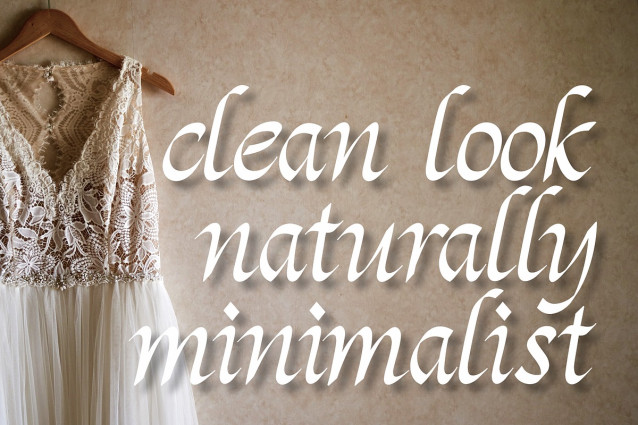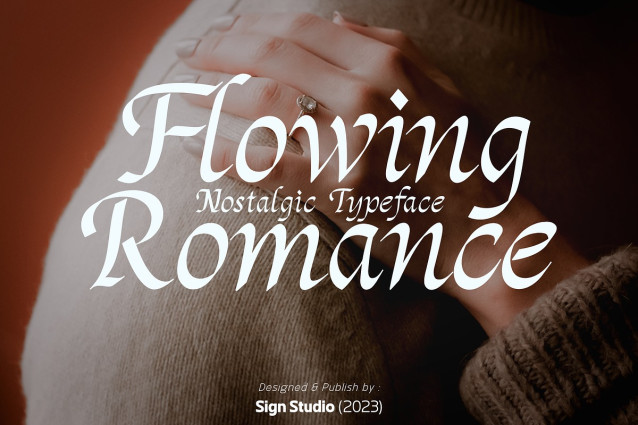
Flowing Romance Font
Flowing Romance Font is a classic styled font. As natural handwriting flows on paper to express simple love. You can feel like writing with a pen because every part is very humane.